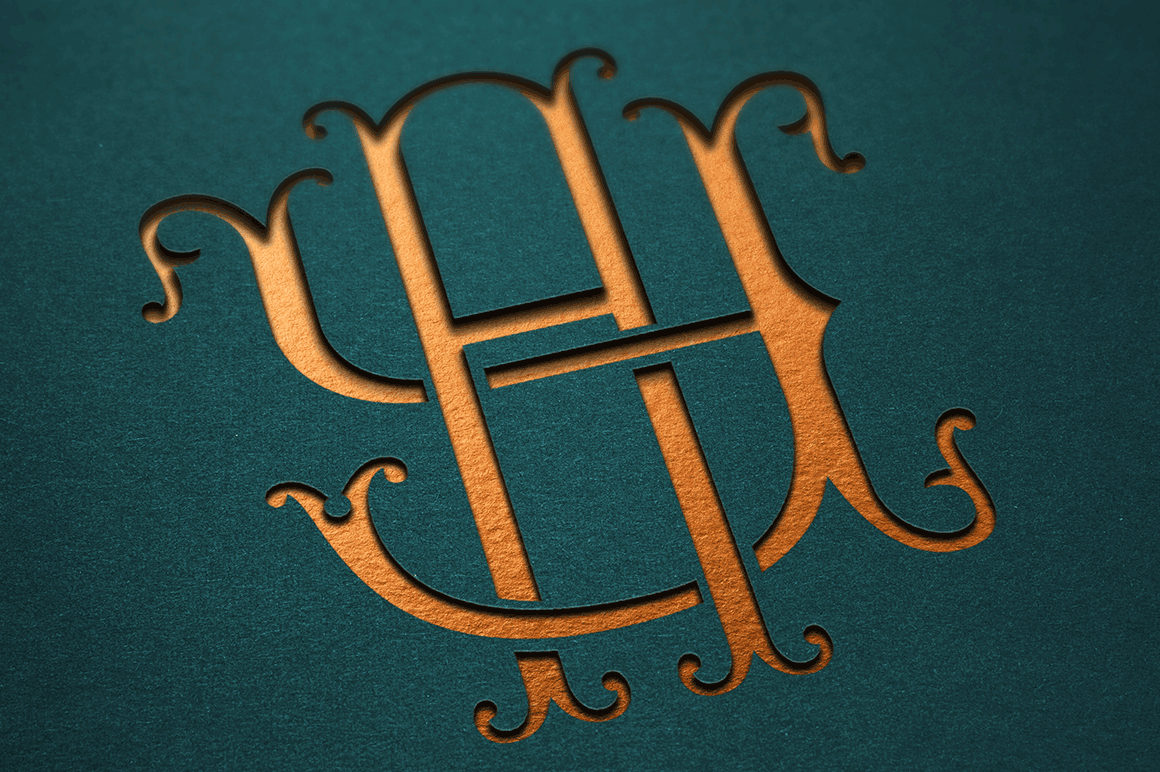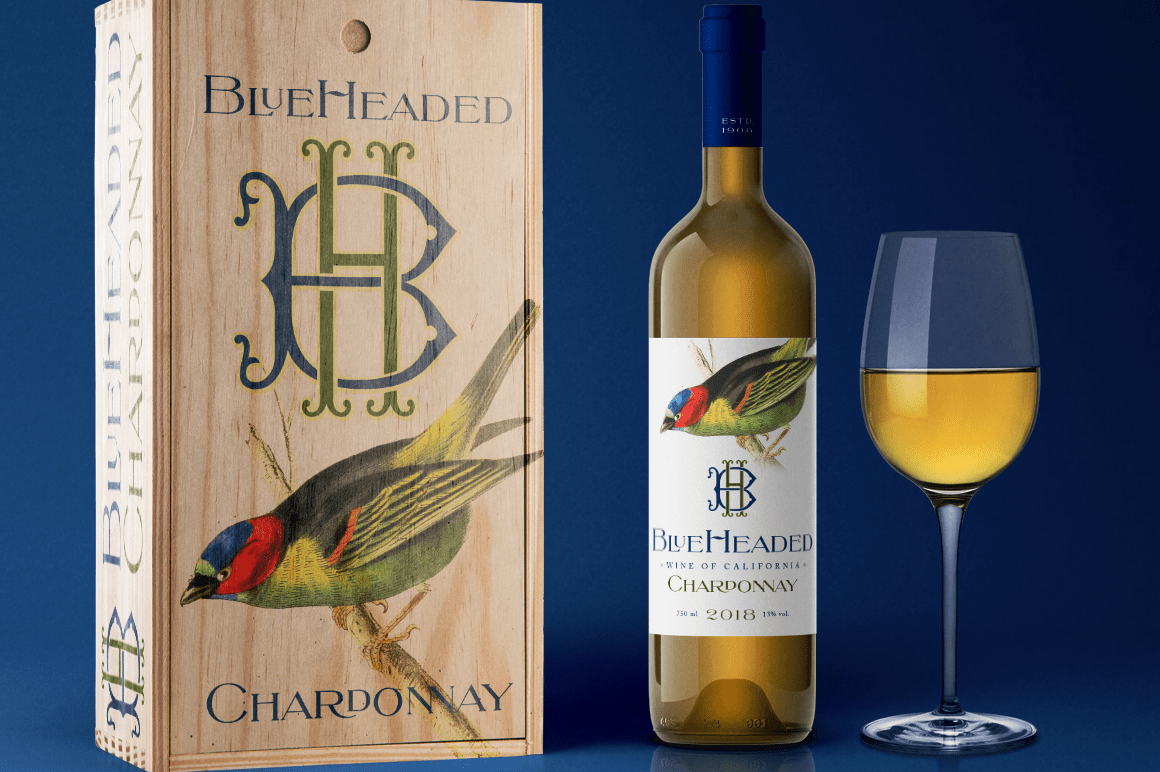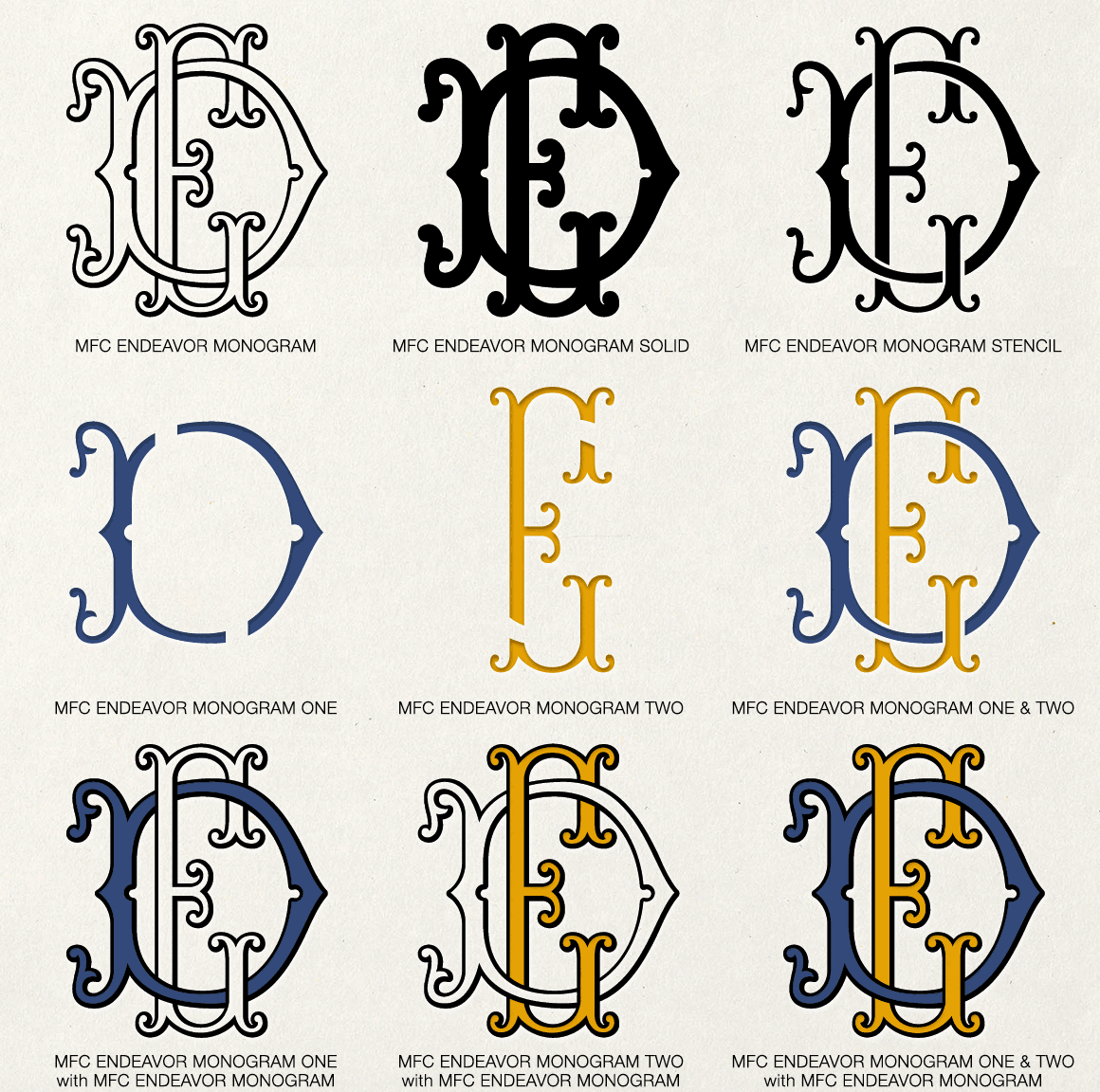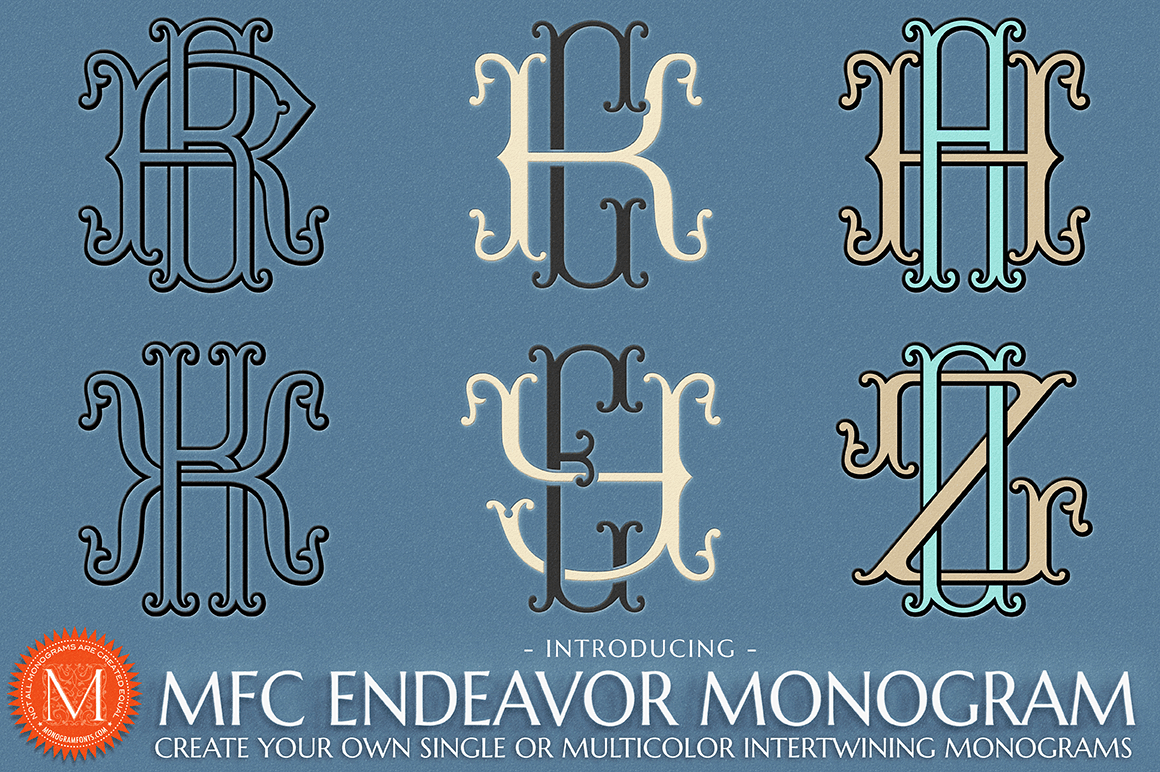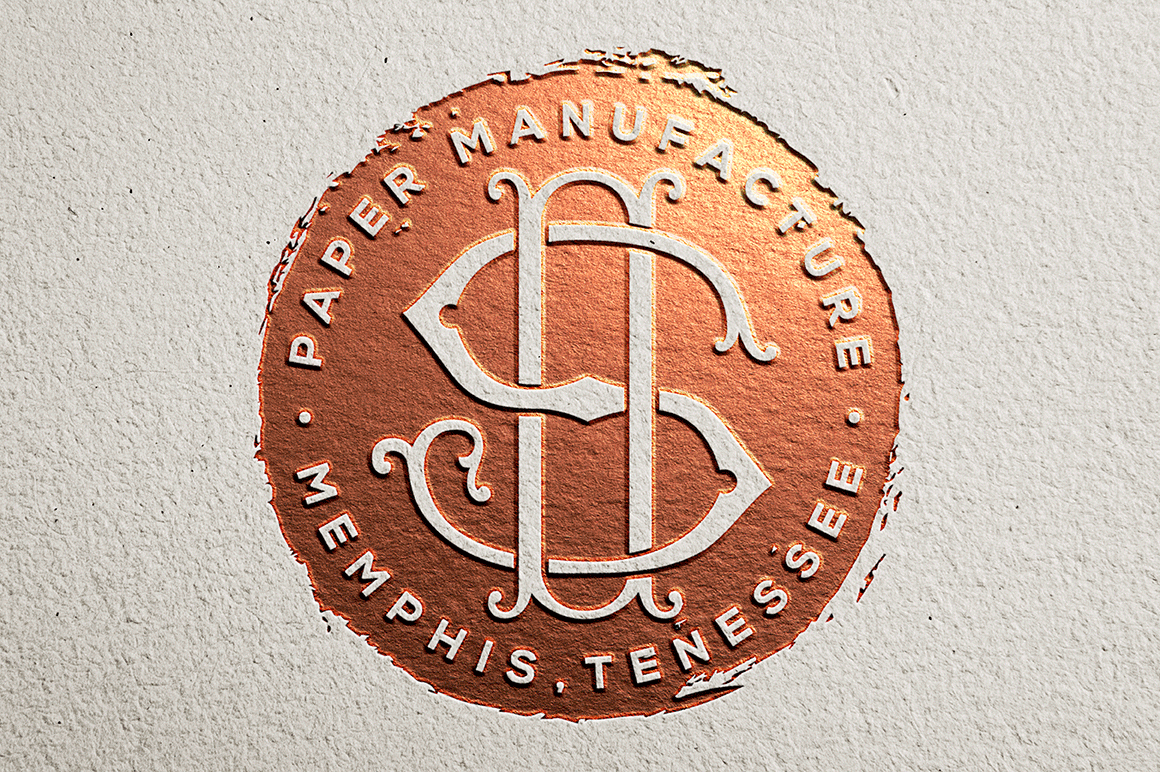
MFC Endeavor Monogram
About MFC Endeavor Monogram
The inspiration source for MFC Endeavor Monogram is an alphabet set from the book, Monograms and Alphabets for Combination by Dollfus Mieg & Cie, first published in the 1890s. What began as 26 referenced outline/shadowed letters became an over 730 character…